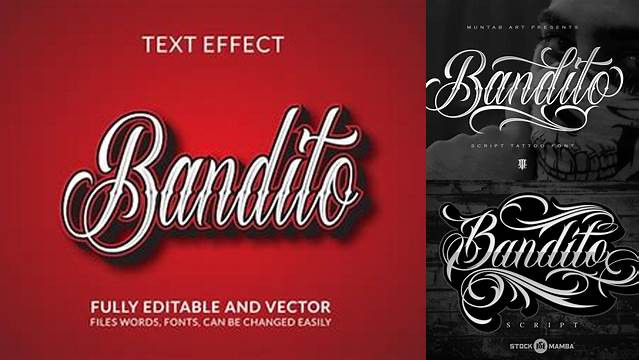
Free Bandito Script Font Generator: Create Unique Text!
Hey guys! Ever wanted to create some really cool, unique text? You know, something with that edgy, handwritten feel? Well, you've come to the right place! We're diving deep into the world of Bandito script font generators and how you can use them for absolutely free. Whether you're designing a logo, crafting social media graphics, or just want to add some flair to your personal projects, understanding how to leverage these tools is a game-changer. Let's get started!
1. What is Bandito Script Font?
So, what exactly is Bandito script font? Well, it's a typeface that mimics handwritten lettering, often with a slightly rough and rebellious edge. Think of it as the font equivalent of a leather jacket and a motorcycle – it's got that cool, tough vibe. The Bandito script font typically features flowing strokes, varying line weights, and sometimes even intentional imperfections to give it that authentic, hand-drawn feel. This makes it perfect for projects that need a personal touch, a bit of attitude, or a vintage aesthetic. We're talking logos, posters, t-shirt designs, and so much more! But the beauty of Bandito script font lies not just in its appearance but also in its versatility. You can use it to convey a wide range of emotions and messages, from bold and assertive to playful and quirky. The key is to understand how to use it effectively, which is what we’ll explore further in this article.
2. Why Use a Bandito Script Font Generator?
Okay, so why should you even bother using a Bandito script font generator? Well, the biggest reason is convenience. Imagine you need a specific phrase or word in this font, but you don't have the software or skills to create it from scratch. A generator swoops in to save the day! These tools allow you to type in your text and instantly see it rendered in various Bandito script font styles. It's quick, easy, and often free! Plus, many generators offer customization options, so you can tweak the size, color, and other aspects of the font to match your project perfectly. Another major advantage is experimentation. You can try out different fonts and styles without having to download and install anything. This makes it incredibly easy to find the perfect Bandito script font for your needs. Let's be real, time is money, and font generators save you both!
3. Benefits of Using a Free Bandito Script Font Generator
Now, let’s talk about the sweet, sweet benefits of using a free Bandito script font generator. First and foremost: it's free! You don't have to shell out any cash to access a wide range of Bandito script font styles. This is a huge win, especially if you're on a budget or just starting out with design. Secondly, these generators are incredibly user-friendly. You don't need to be a design guru to use them. Simply type in your text, choose your font, and boom – you've got your Bandito script masterpiece. Plus, many free generators offer customization options, allowing you to adjust the size, color, and other elements to perfectly match your project’s aesthetic. And did I mention the time-saving aspect? You can generate text in seconds, saving you hours of manual font creation or searching for the perfect pre-made font. In short, a free Bandito script font generator is a fantastic resource for anyone looking to add a touch of flair to their designs without breaking the bank.
4. Key Features to Look For in a Generator
When you're on the hunt for the perfect Bandito script font generator, there are a few key features you should keep an eye out for. First, variety is the spice of life, and that applies to fonts too! A good generator should offer a wide range of Bandito script styles, from classic and edgy to more playful and modern variations. This gives you the flexibility to find the perfect font for your specific project. Next up: customization options. Can you adjust the size, color, and spacing of the font? Can you add effects like shadows or outlines? The more customization options, the more control you have over the final result. User-friendliness is also crucial. The generator should be intuitive and easy to use, even if you're not a design expert. A simple interface and clear instructions are always a plus. And finally, consider the output format. Can you download the generated text as an image or a vector file? Image files are great for quick use, while vector files are ideal for scaling and editing. Keeping these features in mind will help you choose a Bandito script font generator that meets your needs and helps you create stunning designs.
5. Top Free Bandito Script Font Generators Online
Alright, let's get down to the nitty-gritty and talk about some of the top free Bandito script font generators you can find online. There are tons of options out there, but a few stand out from the crowd. One popular choice is [Generator Website 1], known for its wide selection of Bandito script styles and user-friendly interface. You can easily type in your text, browse through the available fonts, and customize the size, color, and other settings. Another great option is [Generator Website 2], which offers a unique set of Bandito script fonts that you won't find anywhere else. This generator also includes advanced customization options, such as the ability to add shadows and outlines. And don't forget about [Generator Website 3], which is particularly praised for its clean and intuitive design. This generator is perfect for beginners, as it makes the process of creating Bandito script text incredibly simple and straightforward. Of course, the best way to find the perfect generator for you is to try out a few and see which one you like best. So go ahead, explore the options and unleash your inner Bandito script artist!
6. How to Use a Bandito Script Font Generator: A Step-by-Step Guide
Okay, so you've found a Bandito script font generator that looks promising. Now what? Don't worry, guys, using these tools is super easy! Here's a step-by-step guide to get you started: First, navigate to the website of your chosen generator. Most generators have a simple, user-friendly interface, so you should be able to find the text input field without any trouble. Step two: type your text into the designated field. This could be anything from a single word to a whole sentence, depending on your project. Step three: browse through the available Bandito script fonts and choose the one that you like best. Many generators offer a preview of your text in each font, so you can easily see how it will look. Step four: customize your font. This is where you can adjust things like the size, color, and spacing of the text. Some generators also offer more advanced options, such as adding shadows or outlines. And finally, step five: download your generated text. Most generators allow you to download your text as an image file (like PNG or JPG) or a vector file (like SVG). Choose the format that best suits your needs and download away! See? I told you it was easy! With a little practice, you'll be creating stunning Bandito script text in no time.
7. Customizing Your Bandito Script Font
So, you've generated your Bandito script text, but you want to take it to the next level? Customization is key! Most Bandito script font generators offer a range of options to tweak your text and make it truly unique. One of the most basic customizations is, of course, changing the color. You can choose from a palette of colors or even enter a specific hex code to match your project's branding. Another common customization is adjusting the size of the font. This is especially important if you're using the text in a design with other elements – you want to make sure it's the right size and scale. Spacing is another crucial element to consider. You can adjust the letter spacing (the space between individual letters) and the line spacing (the space between lines of text) to create different effects. For example, tighter spacing can give your text a more compact and bold look, while looser spacing can make it feel more airy and elegant. Some generators even allow you to add effects like shadows, outlines, or gradients to your Bandito script font. These can add depth and dimension to your text, making it stand out even more. Don't be afraid to experiment with different customizations to see what works best for your project. The possibilities are endless!
8. Best Uses for Bandito Script Fonts
Alright, let's talk about where Bandito script fonts really shine. These fonts aren't just pretty faces; they're versatile workhorses that can add a touch of personality to a wide range of projects. One of the most popular uses for Bandito script fonts is in logos. Their hand-drawn feel can give your logo a unique and memorable look, especially if you're going for a vintage or edgy vibe. Think motorcycle clubs, tattoo parlors, or independent coffee shops – Bandito script is right at home in these contexts. Another great use case is in posters and flyers. The bold, attention-grabbing nature of Bandito script makes it perfect for headlines and callouts. You can use it to create eye-catching designs that really pop. Bandito script fonts are also fantastic for social media graphics. Whether you're creating a quote graphic, an announcement, or a promotional image, this font can help you stand out from the crowd. And let's not forget about apparel design! Bandito script looks amazing on t-shirts, hoodies, and other clothing items. It's a great way to add a touch of attitude and style to your wardrobe. In short, if you're looking for a font that's bold, stylish, and full of personality, Bandito script is a fantastic choice.
9. Combining Bandito Script with Other Fonts
One of the keys to great typography is knowing how to combine fonts effectively. Bandito script, with its strong personality, can be a bit of a diva, but when paired with the right fonts, it can truly sing! So, what are some good font pairings for Bandito script? One classic combination is Bandito script with a simple sans-serif font. Sans-serif fonts are clean and modern, which provides a nice contrast to the more ornate and hand-drawn feel of Bandito script. This pairing works well because the sans-serif font provides a grounding element, allowing the Bandito script to shine without overwhelming the design. Another popular pairing is Bandito script with a serif font. Serif fonts have those little